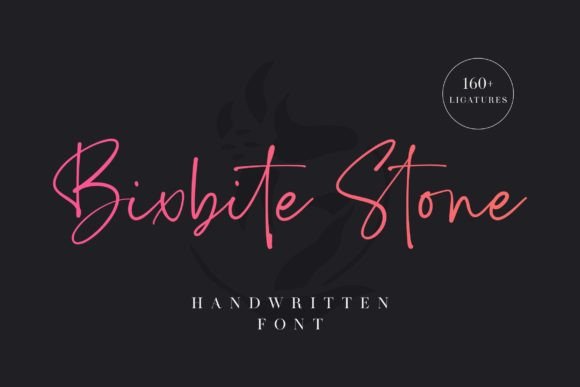
Bixbite Stone Font: Elevate Your Design with Elegance and Flair
In the realm of typography, few fonts manage to capture the essence of elegance and sophistication as effectively as the Bixbite Stone Font. This exquisite, handwritten font has been meticulously crafted to bring a touch of luxury and refinement to any design project. With its flowing lines, unique character touches, and extensive ligature options, Bixbite Stone is poised to become the go-to choice for designers seeking to create visually stunning and memorable branding, logos, wedding designs, product packaging, and quotes.
The Essence of Bixbite Stone Font
Bixbite Stone is more than just a font; it’s an experience. Its elegant and flowing script is designed to evoke a sense of sophistication and style, making it perfect for projects where making a lasting impression is paramount. Whether you’re crafting a logo that needs to stand out in a crowded market, designing wedding invitations that require a touch of romance and elegance, or creating product packaging that needs to convey luxury and quality, Bixbite Stone Font is the ideal choice.
A Wealth of Creative Possibilities: 160+ Ligatures
One of the standout features of the Bixbite Stone Font is its extensive collection of ligatures. With over 160 ligatures included, designers have a wealth of creative possibilities at their fingertips. Ligatures, the connections between letters that can significantly enhance the flow and aesthetic of text, allow for a high degree of customization and personalization. This means that each piece of text can be tailored to fit the specific needs and style of a project, ensuring that the final design is not only beautiful but also uniquely suited to its purpose.
Crafting Eye-Catching Logos and Branding
When it comes to creating logos and branding materials, the choice of font can make all the difference. A logo is often the first point of contact between a brand and its audience, and it needs to make a strong, positive impression. Bixbite Stone Font, with its elegant and distinctive characters, is perfectly suited for this task. Its unique touch and sophisticated appearance ensure that logos and branding materials stand out, conveying a sense of luxury, quality, and professionalism.
Elegance in Wedding Design
Wedding designs, including invitations, menus, and ceremony programs, require a special kind of elegance and romance. Bixbite Stone Font, with its flowing script and beautiful ligatures, brings a touch of fairy-tale magic to these important documents. Its sophisticated appearance ensures that wedding designs are not only memorable but also reflective of the couple’s style and commitment to detail.
Enhancing Product Packaging
In the competitive world of product packaging, standing out on store shelves is crucial. Bixbite Stone Font offers a sophisticated and eye-catching solution for product packaging design. Its elegant appearance can elevate the perceived value of a product, making it more appealing to potential customers. Whether it’s for luxury goods, beauty products, or gourmet foods, Bixbite Stone can add a touch of class and sophistication that sets a product apart from its competitors.
Bringing Quotes to Life
Quotes, whether used in graphic design projects, on social media, or in marketing materials, have the power to inspire and engage. With Bixbite Stone Font, designers can bring quotes to life in a visually stunning way. The font’s unique and beautiful touch ensures that quotes are not only easy to read but also a pleasure to look at, making them more impactful and shareable.
Why Choose Bixbite Stone Font?
So, why should designers choose Bixbite Stone Font for their projects? The reasons are numerous:
- Elegance and Sophistication: Bixbite Stone brings a level of elegance and sophistication that is hard to match.
- Versatility: From logos and branding to wedding designs, product packaging, and quotes, Bixbite Stone is incredibly versatile.
- Creative Freedom: With over 160 ligatures, designers have the creative freedom to customize their designs to their heart’s content.
- Unique Touch: Every letter has a unique and beautiful touch, ensuring that designs stand out.
Bixbite Stone Font is a game-changer for designers looking to elevate their projects with elegance, sophistication, and a touch of luxury. Its flowing script, extensive ligature options, and unique character touches make it the perfect choice for a wide range of design applications. Whether you’re creating eye-catching logos, elegant wedding designs, sophisticated product packaging, or impactful quotes, Bixbite Stone Font is sure to bring your designs to life in a way that captivates and inspires.
- Font Type: Handwritten, Script
- Ligatures: 160+
- Features: Elegant, Flowing, Unique Character Touches